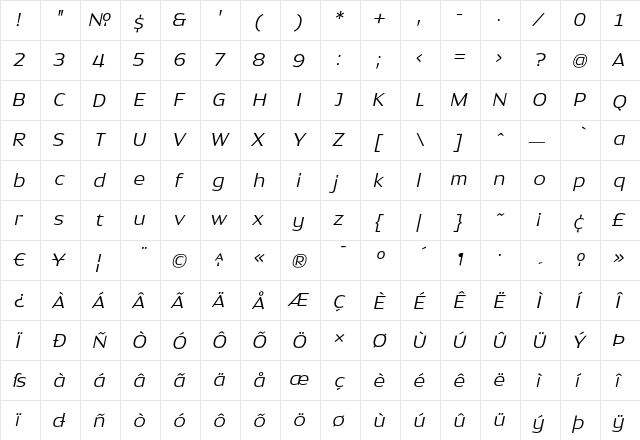
DynastyLight Italic
Design Context for DynastyLight Typeface
DynastyLight takes a measured approach to typography — its balanced proportions and neutral character make it a reliable workhorse for both digital and print work. Its italic angle brings a sense of urgency and motion to the letterforms. The delicate stroke weight brings airiness and refinement to layouts.
Pro Tip: Use DynastyLight for emphasis, pull quotes, and subheadings where its slanted energy can add rhythm to the layout.